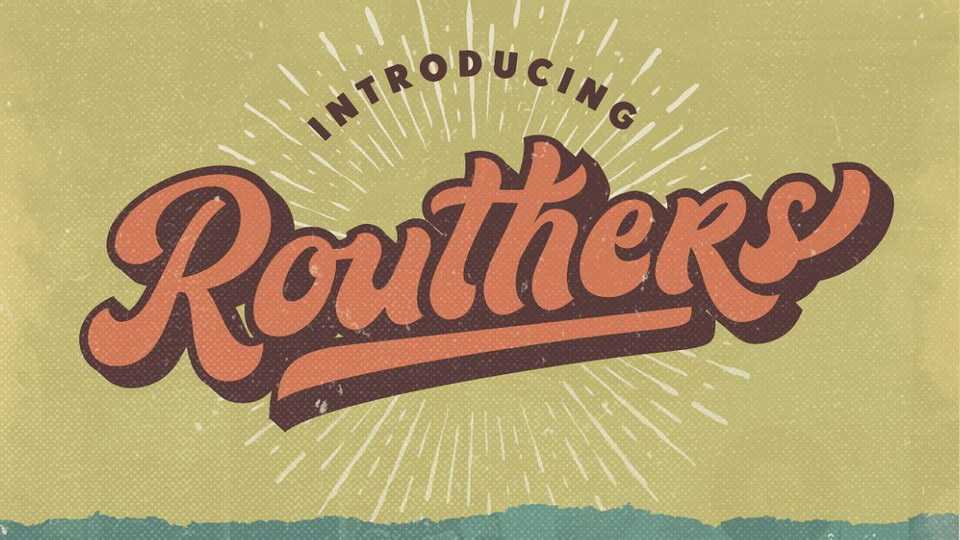
Download Routhers font, a bold script typeface with a retro feel. Routhers is perfect to make a logo for branding, best for apparel design, and quotes.